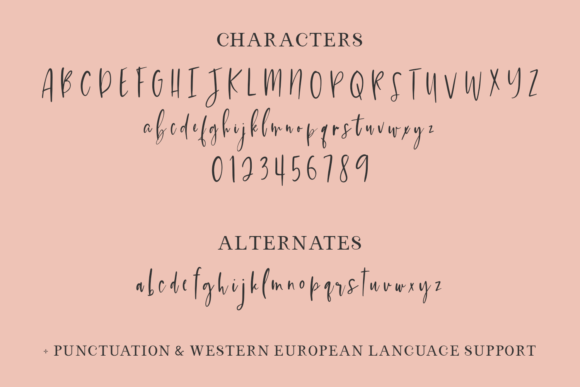
About Mystic Heirloom Script Font
Mystic Heirloom Script is a chic, refined script font that emanates sophistication and elegance. Its stylish alternates and ligatures make this font the perfect match for any project.